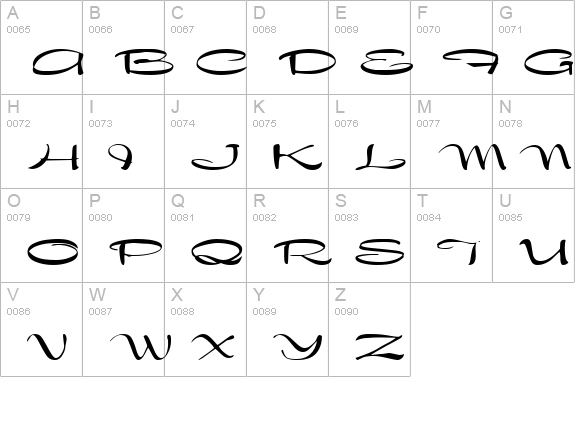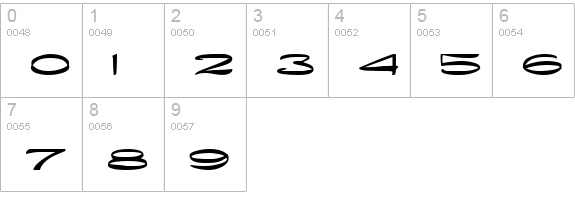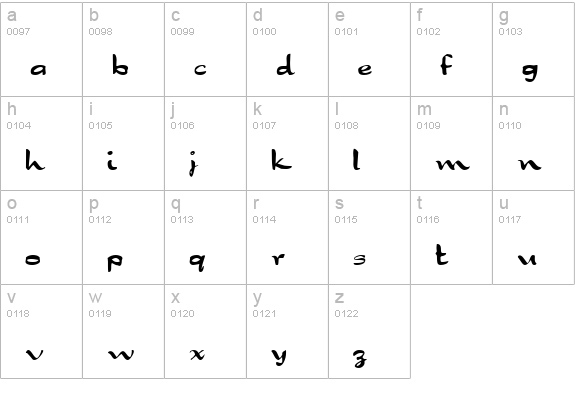
Nofretete font is an elegant and modern typeface that exudes sophistication and style. With its sleek lines and unique curves, this font is perfect for adding a touch of class to any design project. Whether you're creating invitations, logos, or branding materials, Nofretete font will elevate your work to the next level. What's even better is that Nofretete font is free to download at FontsMarket.com. You can easily access this beautiful font and use it in your projects without any cost. Don't miss out on the opportunity to enhance your designs with the timeless beauty of Nofretete font. Download it today and take your creativity to new heights.